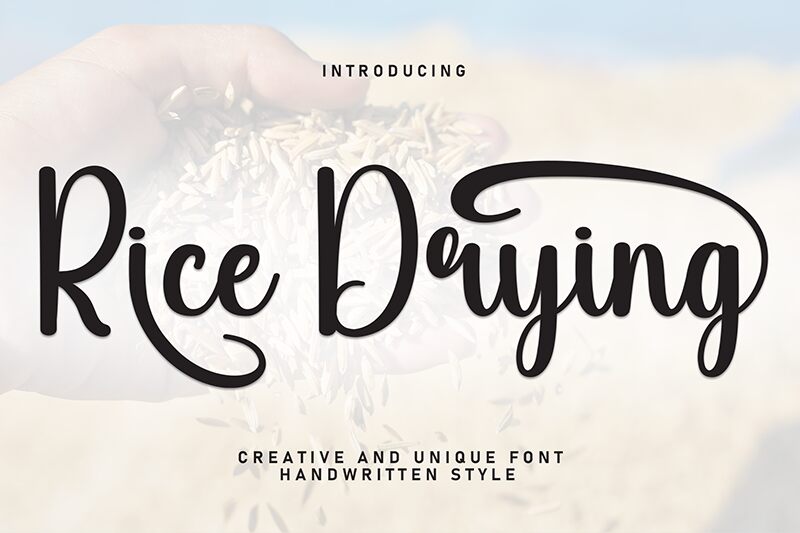
Rice Drying
Rice Drying font by Andi Moz is a casual handwritten font with vintage charm. Its characters enjoy long expressive strokes and elegant curves that easily attract attention. With fluid movement, the font feels like the words were written with ink on paper giving it a true natural handwritten look.
Rice Drying free handwriting font can bring authenticity to restaurant menus, posters, travel journals, postcards & stamps. The fantastic typography could work well too in greeting cards (wedding invitations), logos & branding projects, packages and social media posts stories.